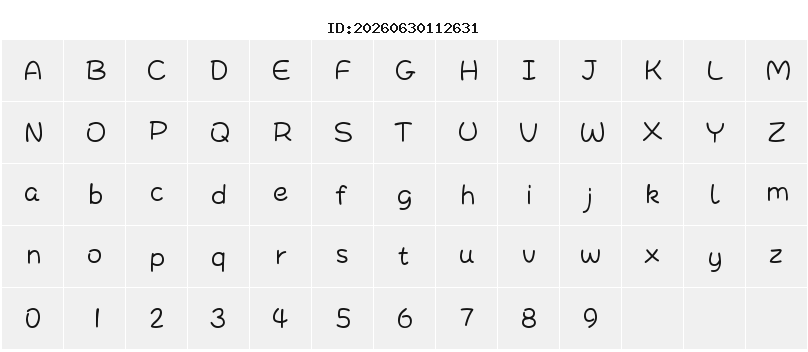
• Designer: Aa
• Manufacturer: 翰美互通(厦门)科技有限公司
• Description: AaYijiarenzhengzhengqiqi (Non-Commercial Use) is a fantastic font with excellent features designed for user interfaces and electronic communications.
Aa一家人整整齐齐 (非商业使用).ttf is a modern, elegant sans-serif font designed for ultimate readability and visual harmony. Perfect for branding, headlines, web design, and print materials.